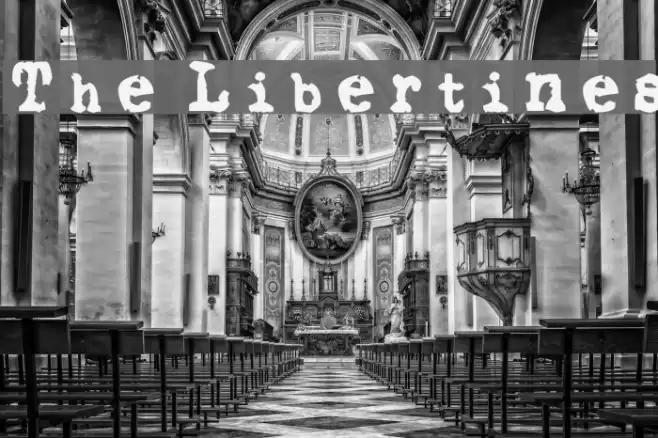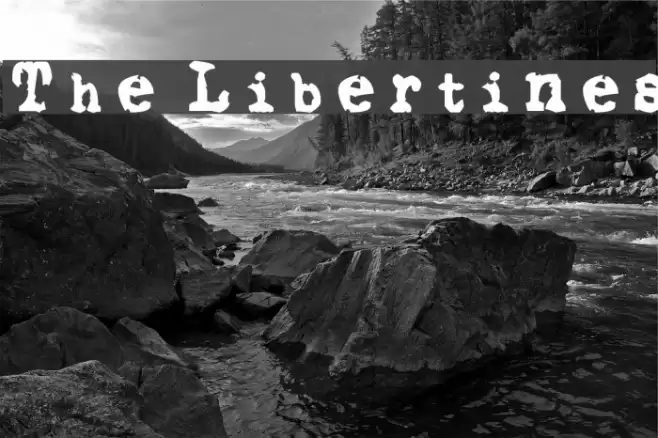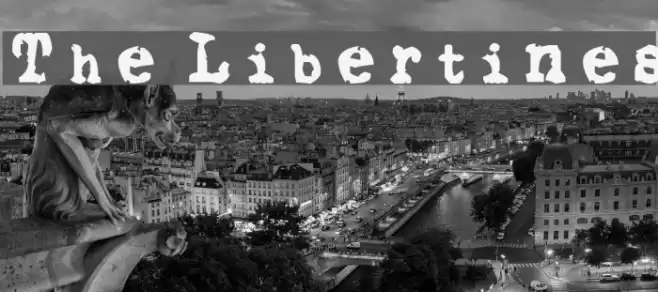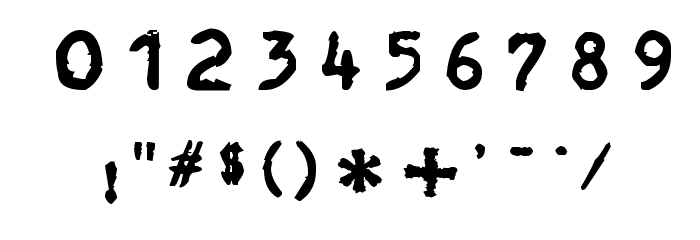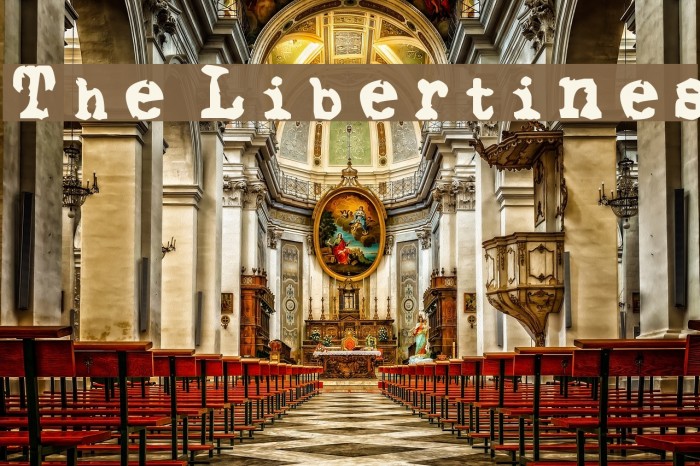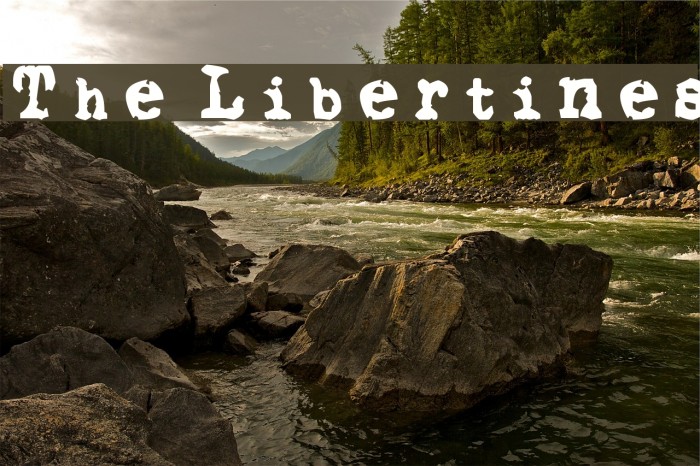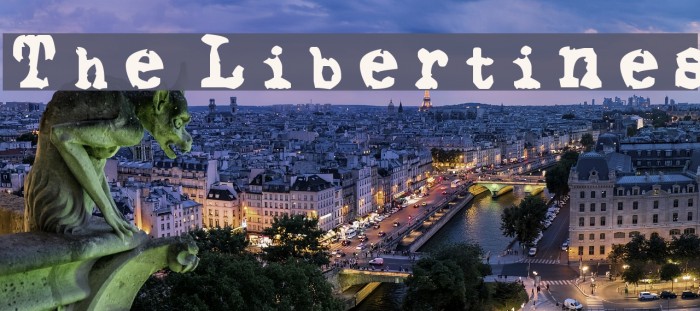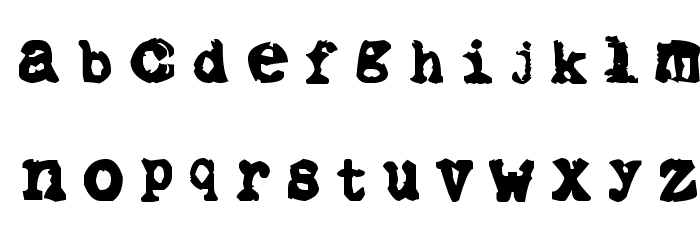
The Libertines Font
The Libertines Description
This font features a distressed and grungy style, with irregular edges and a rough texture that gives it a worn, vintage appearance. The uppercase and lowercase letters maintain a consistent design, with each character appearing as if it has been stamped or printed with a slightly uneven pressure. The numbers and special characters follow the same aesthetic, contributing to a cohesive look. This font's unique style makes it ideal for projects that require a bold, eye-catching design with a touch of rebellion or edginess.
A distressed, grungy font with a vintage, worn appearance from Uncategorized fonts.
- Proposed Projects: Ideal for music album covers, posters, branding for edgy or alternative products, and any design needing a rebellious touch.
- Overall Style: Vintage